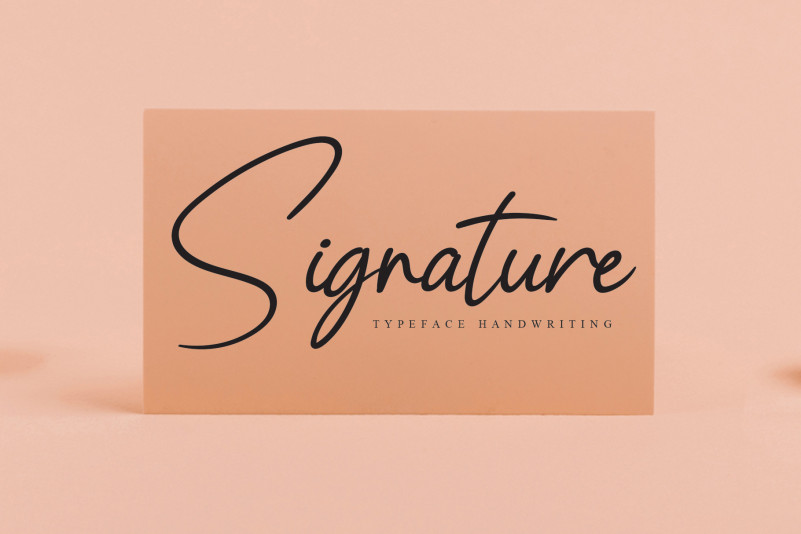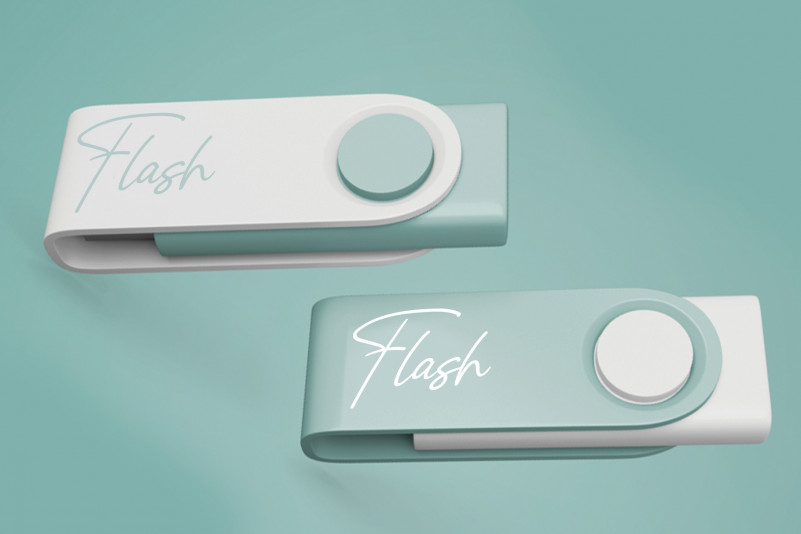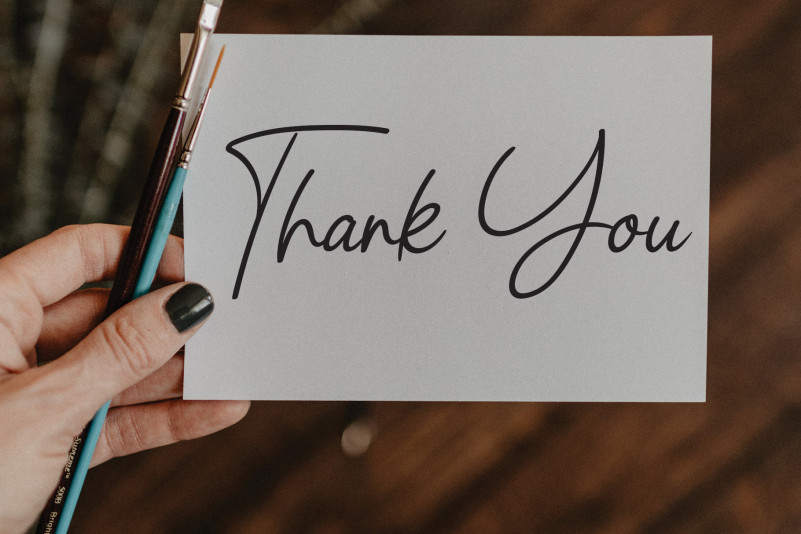
Magnolia Script Font
Magnolia Script Font is a timeless and classic calligraphy script. It looks adorable on wedding invitations, thank you cards, quotes, greeting cards, logos, business cards and every other design which needs a handwritten touch.